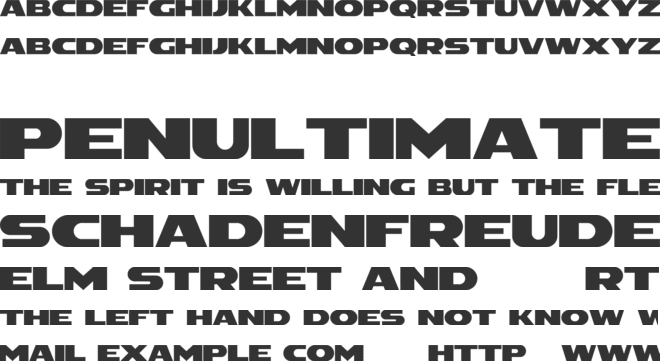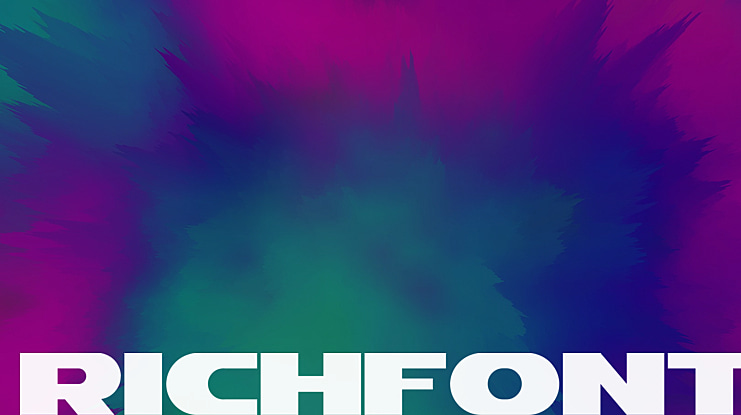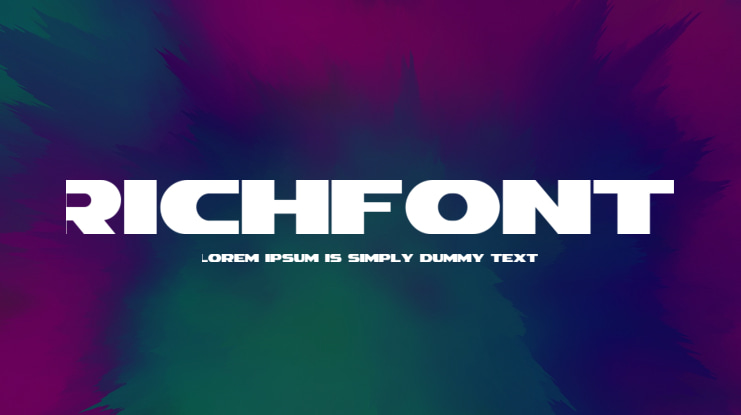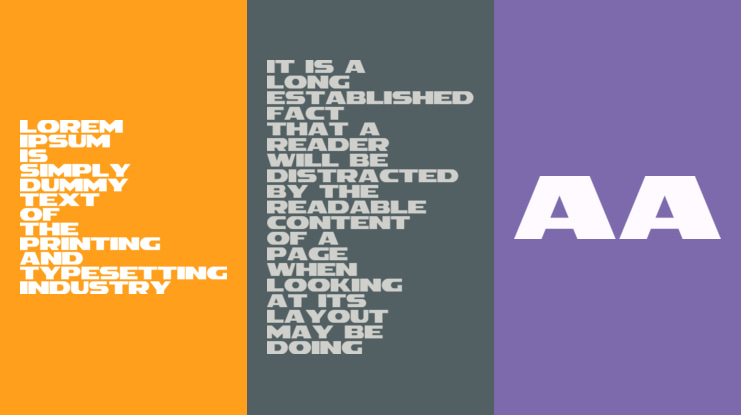
RichFont Font
'RichFont' is a font used in RichAds logo. RichAds is a performance marketing ad network made for affiliates, marketers, publishers, and agencies. With 4B+ impressions daily and powerful ad formats (push notification, popunder), we help affiliate marketers and media buyers run and scale ads for maximum performance.